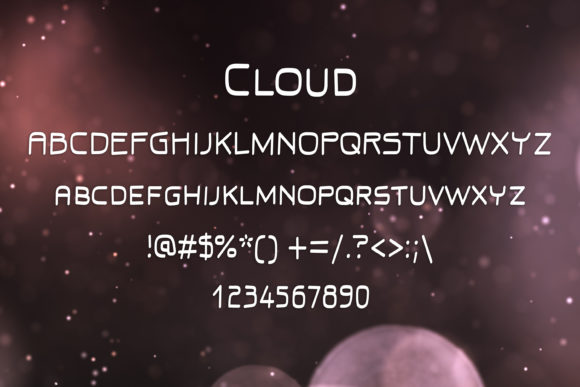
What is Cloud Font?
Cloud Font is a stunning display font that exudes timeless elegance with a hint of quirkiness. Its unique design makes it perfect for a wide range of design projects, from branding and advertising to packaging and digital media. With its clean lines, subtle curves, and distinctive style, Cloud Font is sure to capture attention and leave a lasting impression.
- Elegance**: Cloud Font boasts a sophisticated and refined aesthetic that’s perfect for high-end brands and luxury products.
- Quirkiness**: With its subtle irregularities and unique design elements, Cloud Font adds a touch of whimsy and personality to any design.
- Timelessness**: Unlike trendy fonts that quickly go out of style, Cloud Font has a timeless quality that ensures your designs will remain stylish for years to come.
- Versatility**: Cloud Font is perfect for a wide range of design projects, from headlines and titles to logos and branding.
| Font Name | Cloud Font |